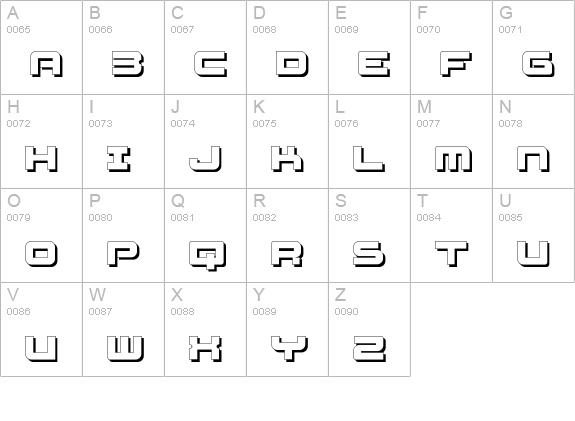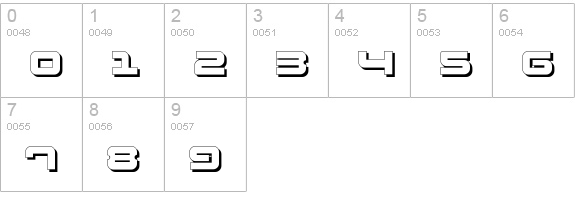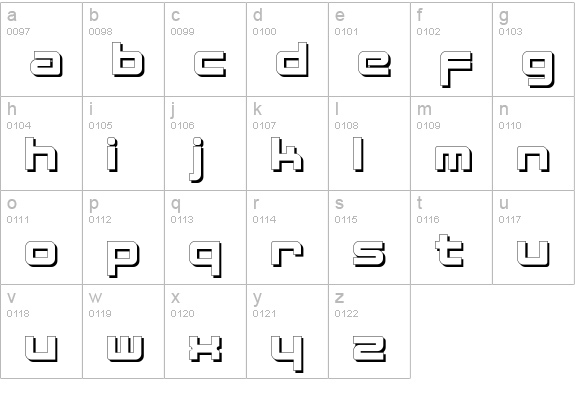
FatsansShadow Font Details
FatsansShadow font is a bold and eye-catching typeface that exudes a sense of modernity and sophistication. With its unique shadow effect, this font adds depth and dimension to any design project, making it stand out from the crowd. The sleek lines and sharp angles of FatsansShadow create a contemporary and stylish look that is perfect for headlines, logos, posters, and more. What sets FatsansShadow apart is not only its striking appearance but also the fact that it is available for free download at FontsMarket.com. This means that you can easily access this stunning font and use it in your projects without any cost. Whether you are a designer looking to add a touch of flair to your work or a business owner seeking a distinctive branding solution, FatsansShadow is a versatile and impactful choice that won't break the bank. Download FatsansShadow today and elevate your designs with this exceptional font.